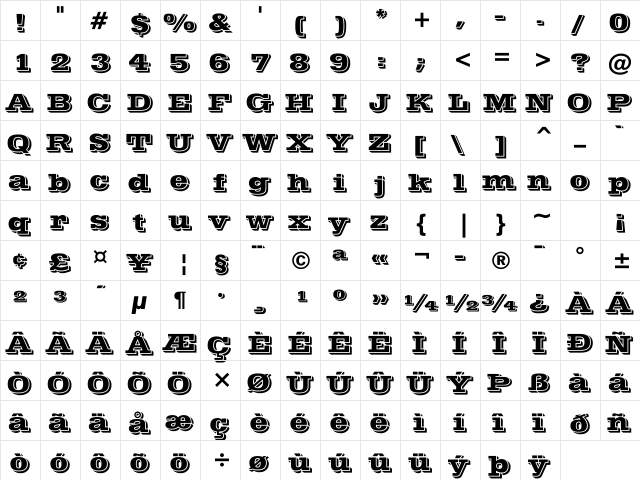
Queste Regular Font Preview
Queste Regular
Queste Regular Font Details
Design Context for Queste Typeface
Queste is a composed and adaptable typeface that performs quietly and consistently across a wide range of design contexts.